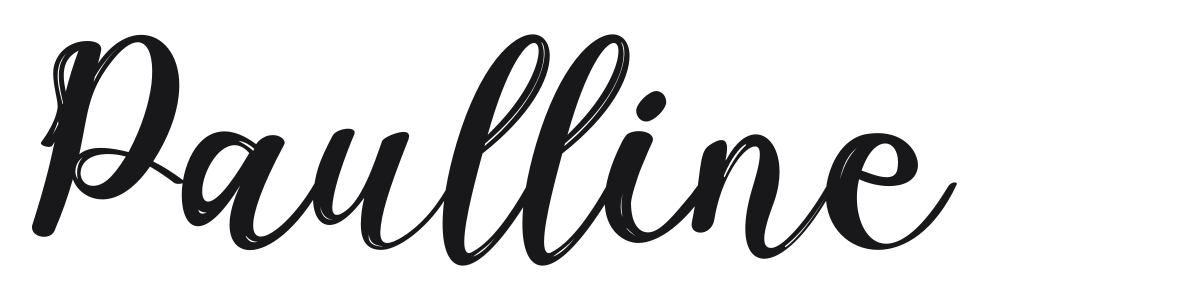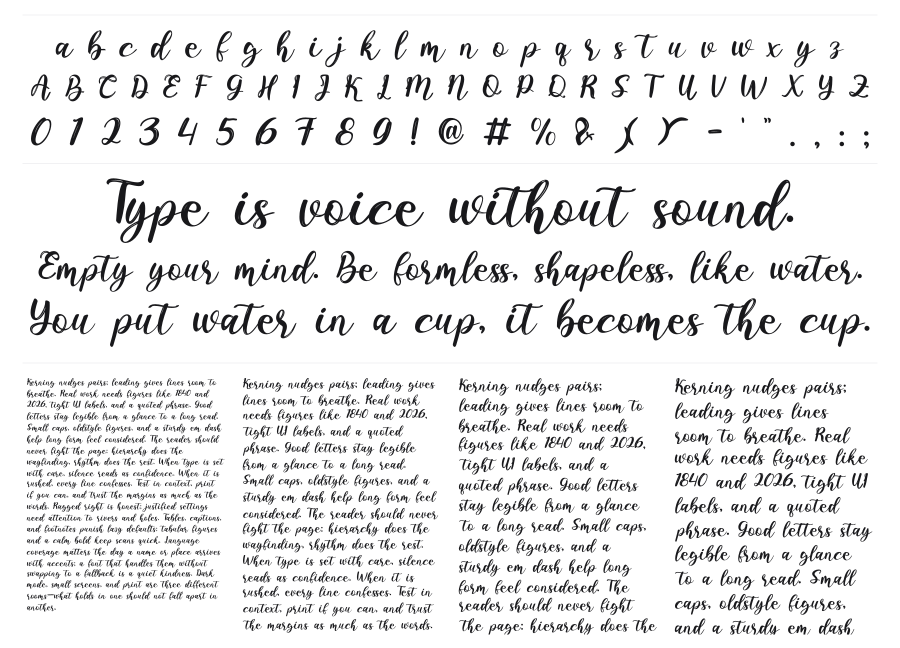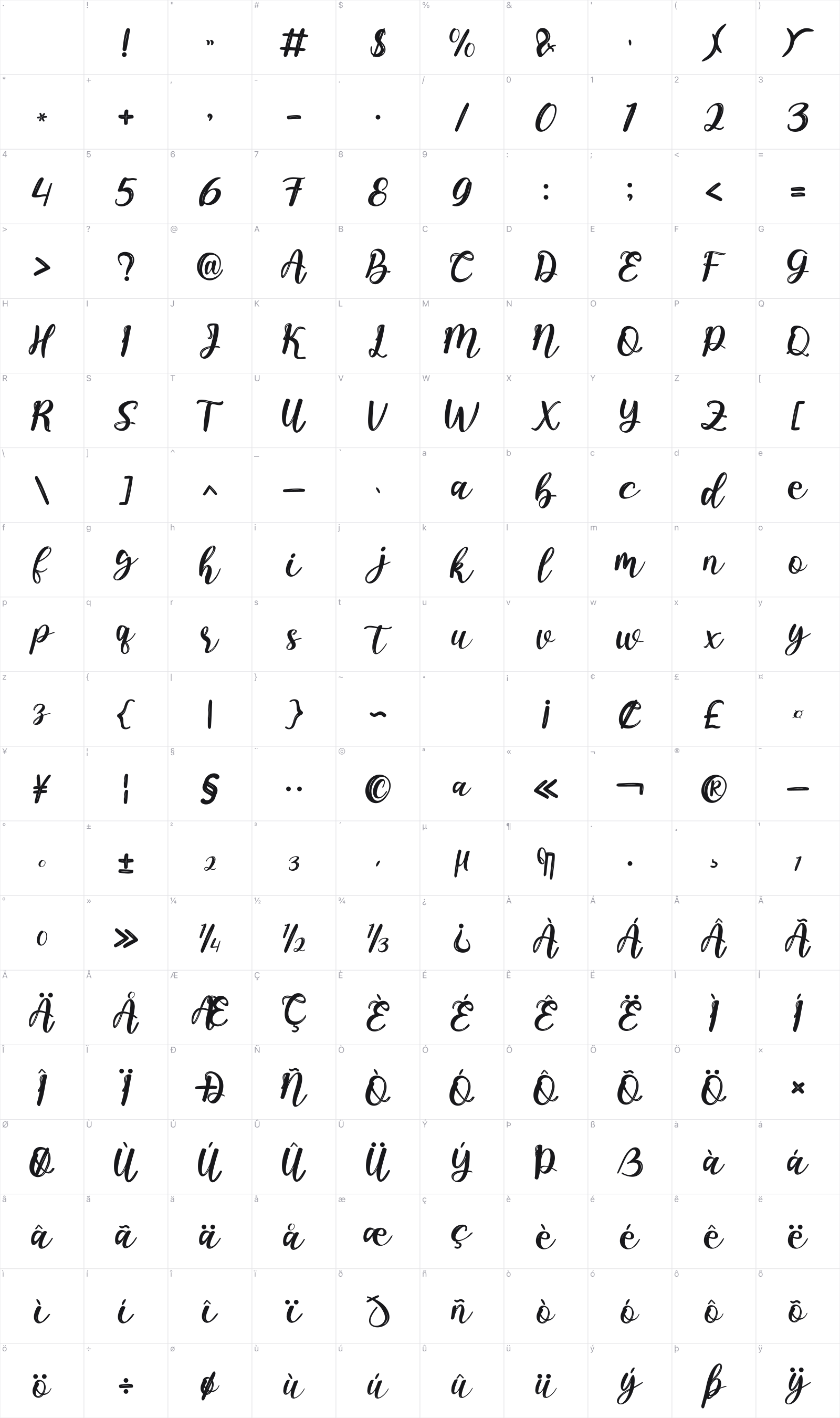
Paulline
Paulline is a lively casual brush script with bouncy letterforms and strong stroke contrast between thick downstrokes and fine hairlines. The generous loops and sweeping tails give it a handcrafted energy that feels personal without being sloppy. It suits branding, packaging, and event materials where warmth and personality matter.